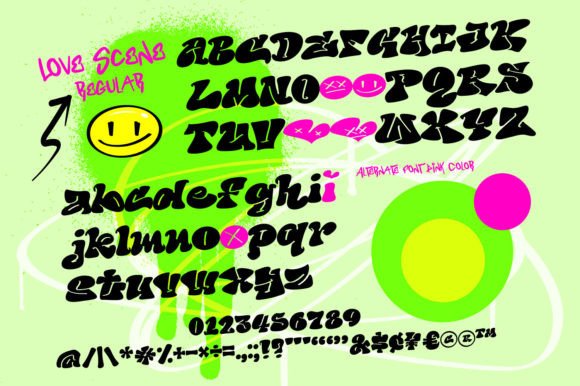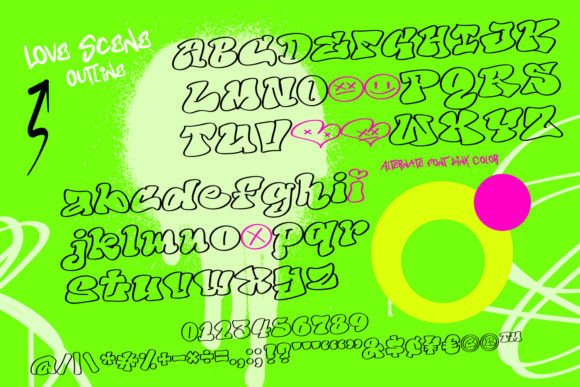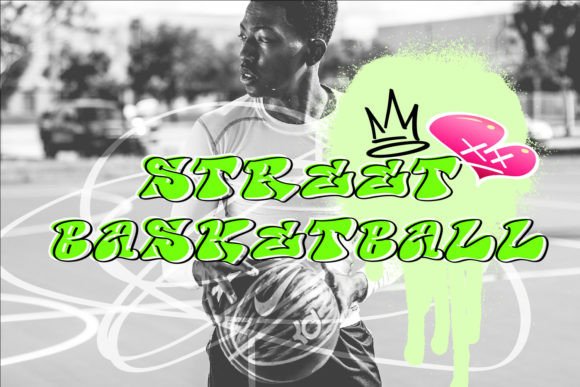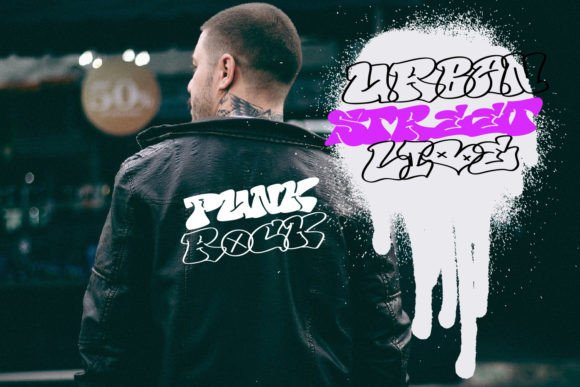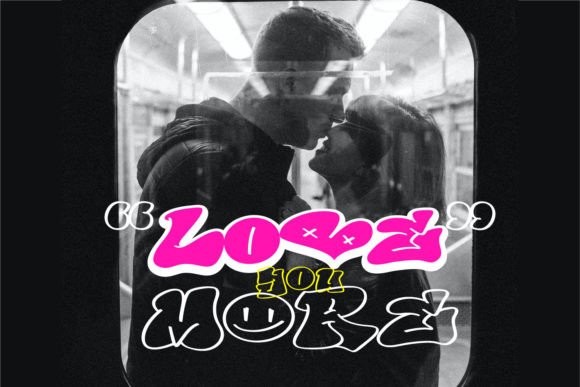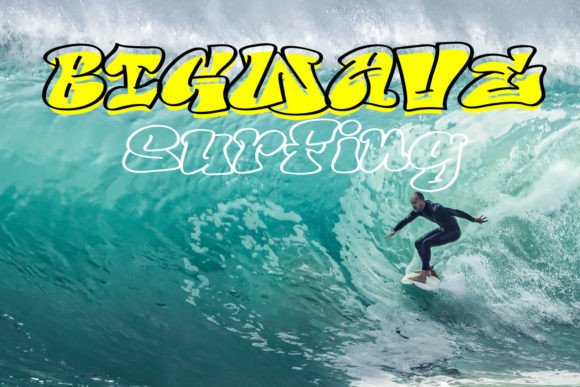
Introduction to Love Scene Font
Love Scene is an awesome graffiti-styled display font that has an urban street art vibe.
This font is suitable for designs such as t-shirts, sportswear, logos, advertisements, clothing, and more .
Key Features of Love Scene Font
Why Choose Love Scene Font?